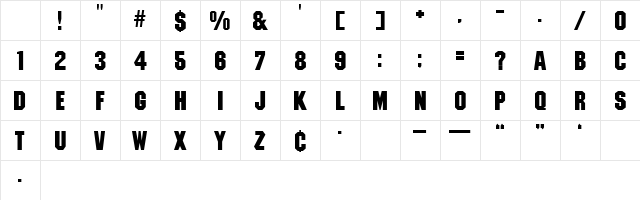
MachineBlock Regular Free Font
MachineBlock Regular
Design Context for MachineBlock
MachineBlock is a composed and adaptable typeface that performs quietly and consistently across a wide range of design contexts.